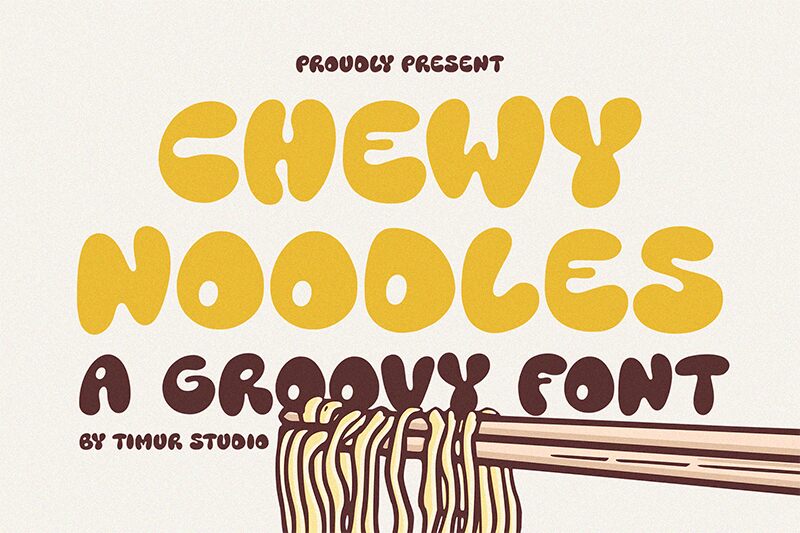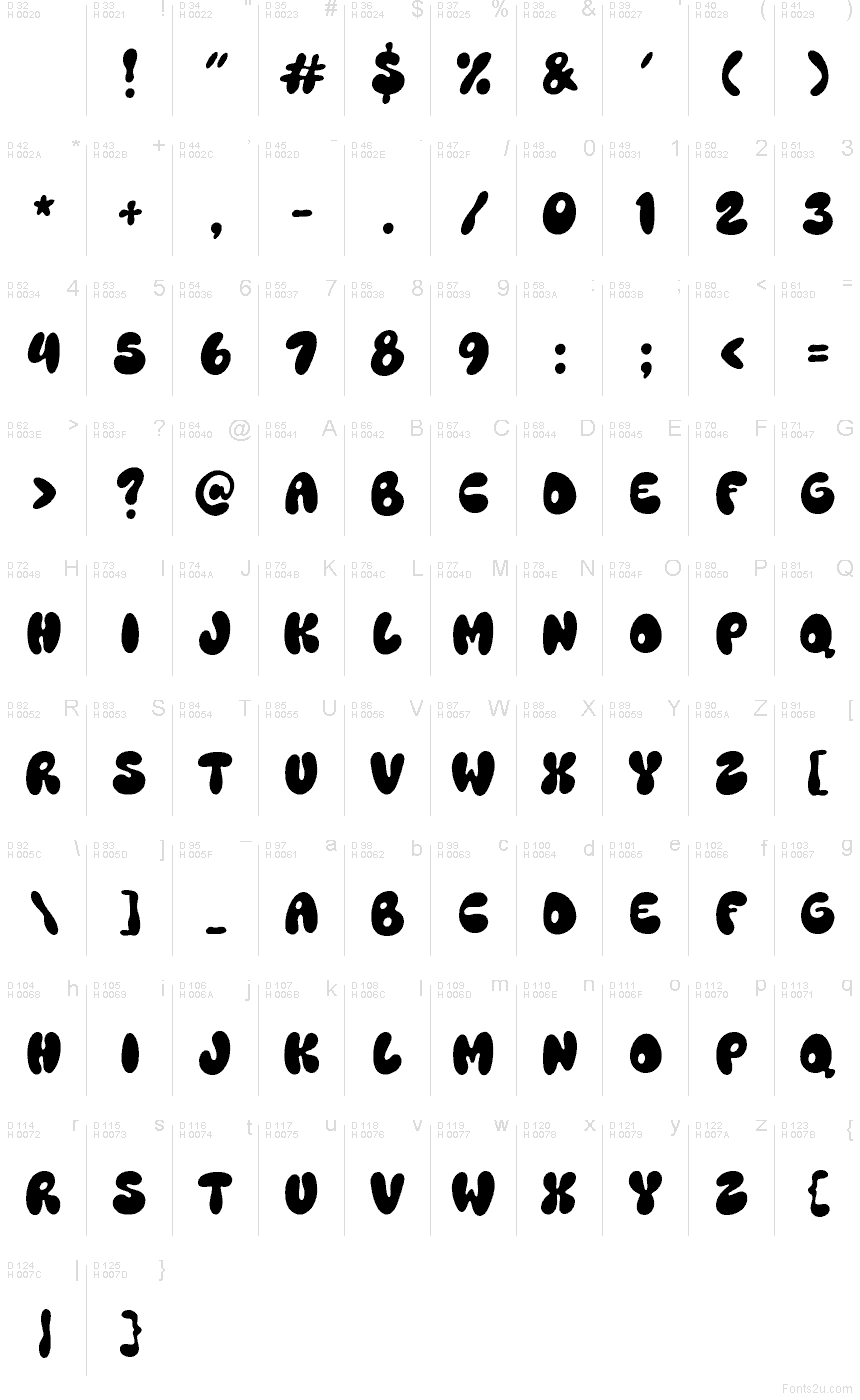
Chewy Noodles
Chewy Noodles font by Timur Type Studio is a free groovy font, with bubble-thick shapes that feel like soft vinyl lettering you could press with your thumb. The strokes stay chunky and round, with playful cut-ins and bouncy spacing that keeps long words readable while still looking mischievous. It’s bold without being sharp, so it brings instant warmth and a little retro sugar.
Using Chewy Noodles, you’ll get friendly impact on snack packaging, kids’ merch, sticker sheets, café menus, YouTube thumbnails, playful posters, and event flyers. This free font also shines on short headlines and logo lockups where you want a squishy, happy rhythm. Pair it with a clean geometric sans for body copy, and give it a touch of extra tracking when the words get wide.